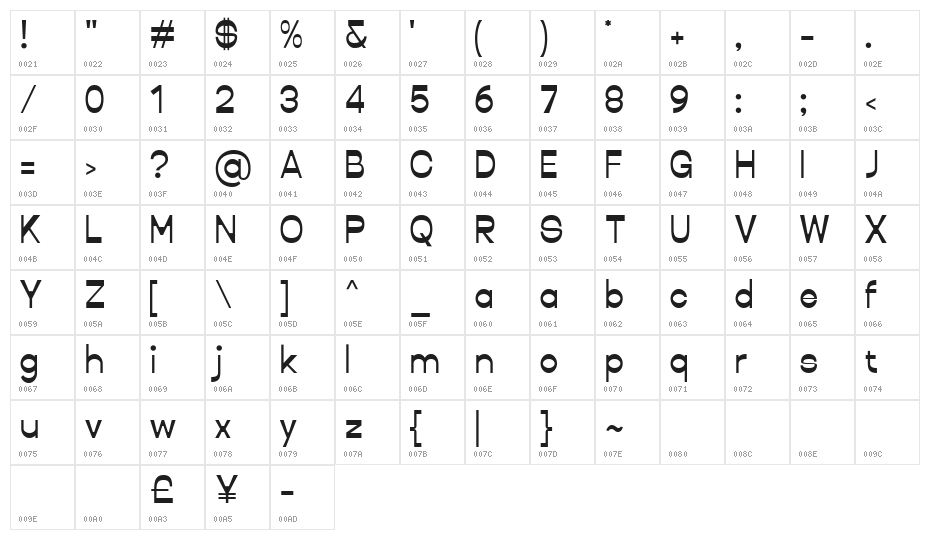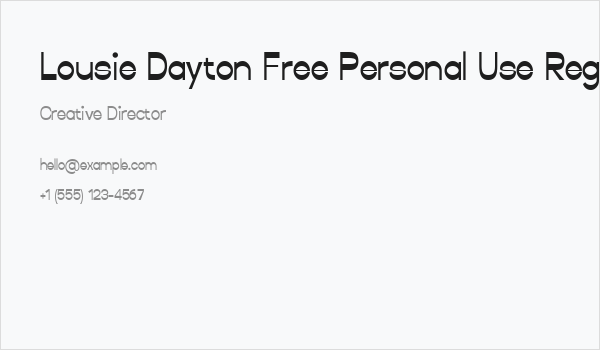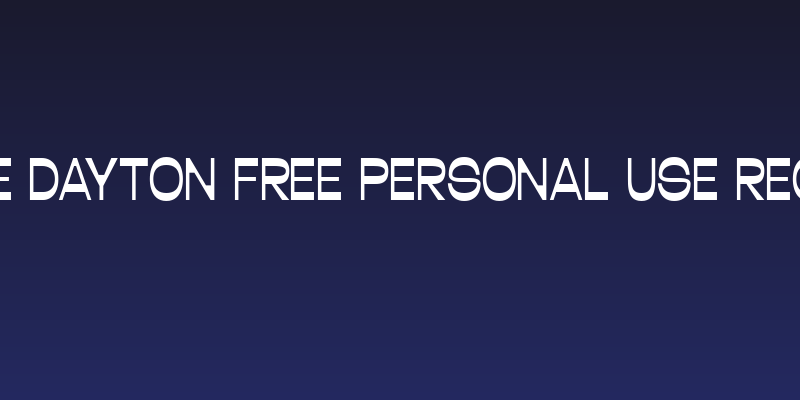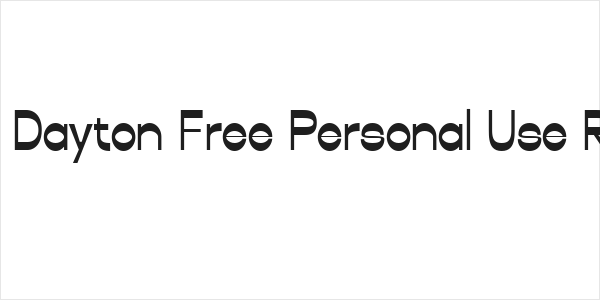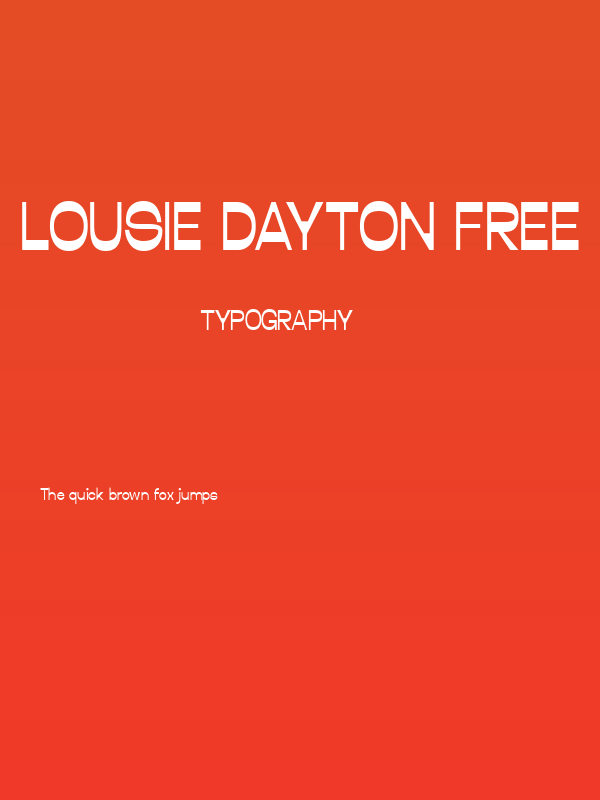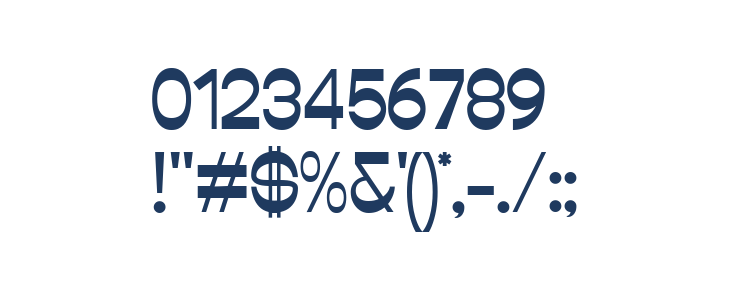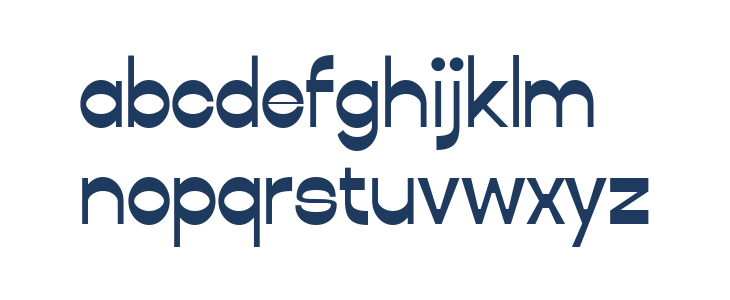
Lousie Dayton Free Personal Use Regular Font
Lousie Dayton Free Personal Use Regular Description
This font features a modern and clean sans-serif design with a geometric structure. The characters are uniform in width, providing a balanced and harmonious appearance. The uppercase letters are bold and impactful, while the lowercase letters maintain a consistent height, enhancing readability. The numerals are clear and distinct, making them suitable for various applications. Special characters are well-defined, adding versatility to the font. Overall, this font exudes a contemporary and professional vibe, making it ideal for digital and print media.
| Proposed Projects | Ideal for branding, web design, advertising, and editorial layouts. |